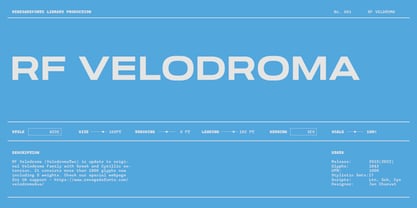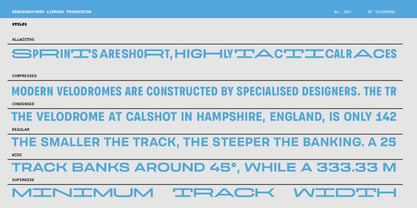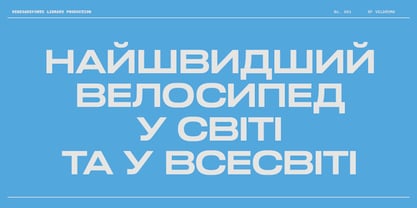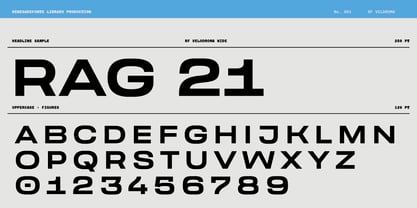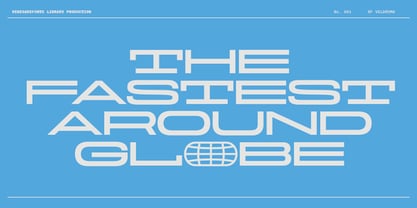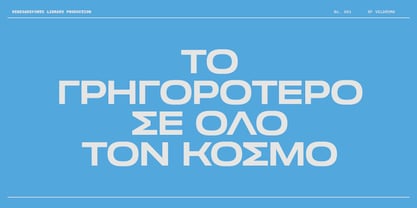
RF Velodroma
The RF Velodroma Font Family was designed by Jan Charvát and published by Renegade Fonts. RF Velodroma contains 6 styles and family package options. More about this family
RF Velodroma is a typeface where all speeds meet in one oval. Your bike track is ready, take your number and get on pedals. This type family experiments on different widths and their combinations. You can let the algorithm inside the font decide which width is good for your text or create your own combinations. From very compressed to maximum width, it all can play in one design.